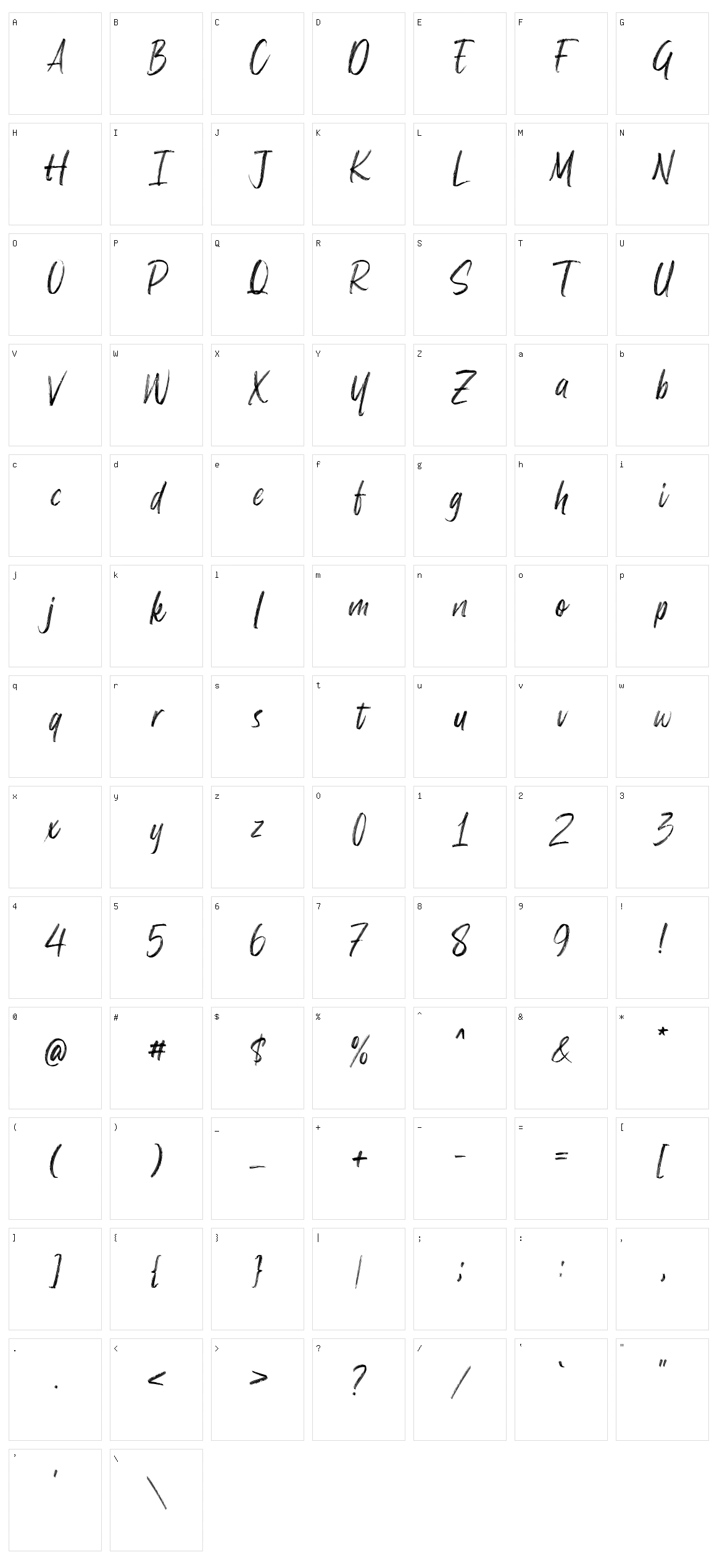
The free font Highfilm is carefully designed by Allouse Studio, showcasing a thoughtful balance of creativity and usability and falls under the Script font style. When you download the ZIP file, it contains only 143.46 KB of font files, making it lightweight and quick to download. Please review the license details below to understand permitted usage and distribution rights. If license information is not available, we recommend using this font for personal projects only or contacting the author directly for commercial usage permissions.